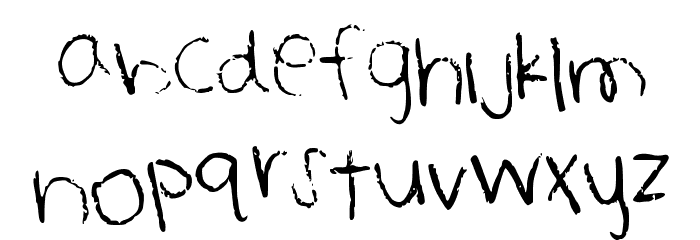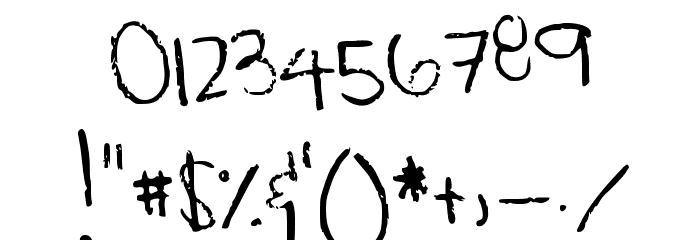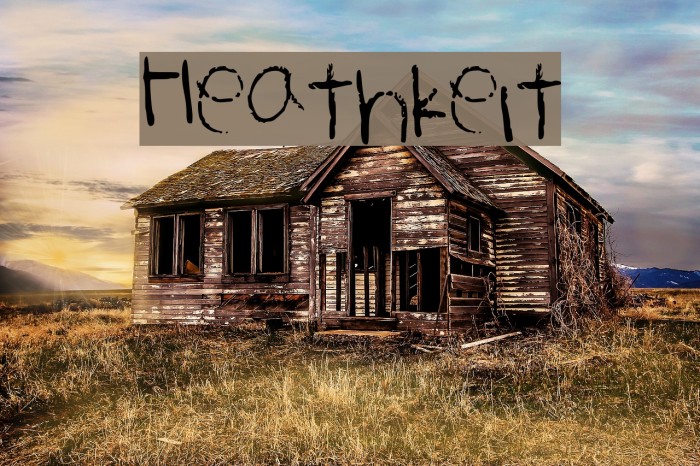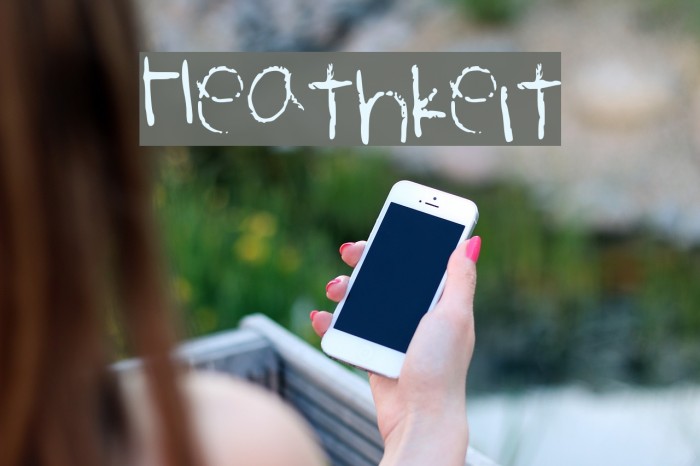
Heathkeit Font
This font features a playful and slightly chaotic handwritten style, characterized by uneven strokes and a casual appearance. The letters are irregular in shape, giving it a unique and artistic flair. The uppercase and lowercase letters maintain a consistent style, with some letters appearing more exaggerated than others. The numbers and special characters follow the same whimsical design, making the font suitable for creative and informal projects. Its overall appearance suggests a sense of spontaneity and creativity, ideal for designs that aim to convey a personal touch.
A playful, handwritten font with irregular strokes and a casual, artistic style.
- Font: Heathkeit
- Weight: Medium
- Proposed Projects: Ideal for greeting cards, children's books, creative posters, and informal branding.
- Category: Handwritten
- Use Case: Logos, Headlines, Informal Text